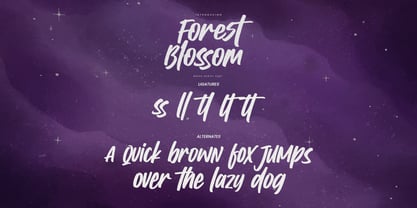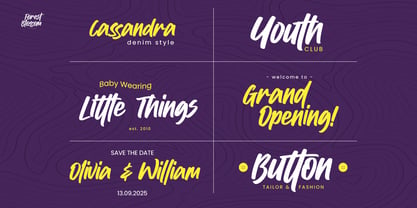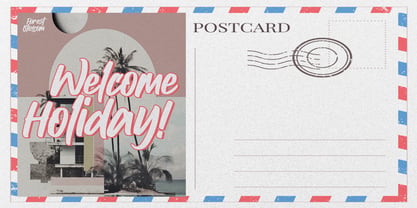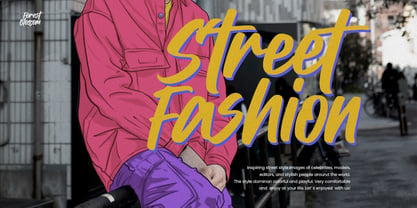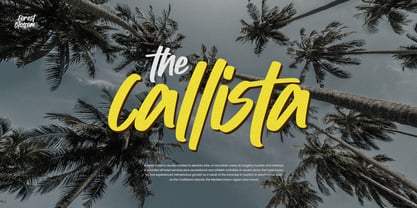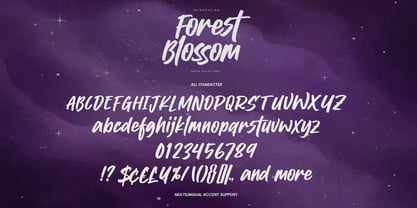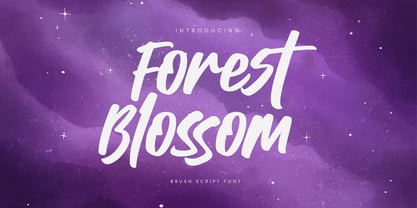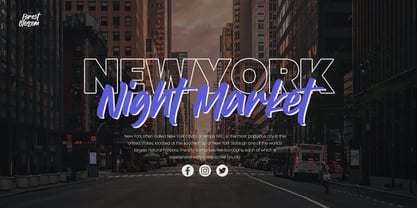
Forest Blossom
von Gassstype
Die Schriftfamilie Forest Blossom wurde von Abdul Malik Wisnu entworfen und von Gassstype veröffentlicht. Forest Blossom enthält 1 Stile. Mehr über diese Familie
Meet Forest Blossom, a bold brush script font with a wild, expressive spirit. Inspired by the organic beauty of nature, its hand-painted strokes bring warmth, energy, and a touch of adventure to every word. Perfect for branding, logos, packaging, posters, invitations, apparel, and creative projects that need a natural yet striking handwritten feel. Let your designs bloom with Forest Blossom!
Designer: Abdul Malik Wisnu
Foundry: Gassstype
Based in Ambarawa - Semarang, Indonesia, and established in 2020 by Anang Fibriyanto and Malik Wisnu, Gassstype Studio is a foundry that builds tools and types, basically to show and promote his typefaces. He began designing fonts as a hobby in 2017 and specialized in kinds of brush fonts considered more useful and durable with a particular focus on creating easy and clever solutions for designers. Other than fonts, we love any form of creativity, photography, brush lettering, and more